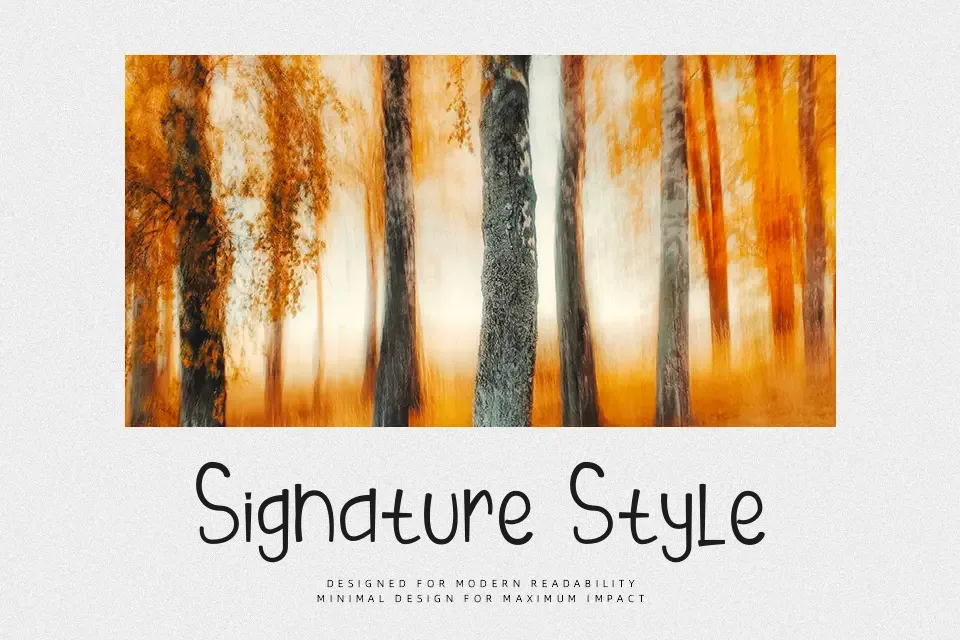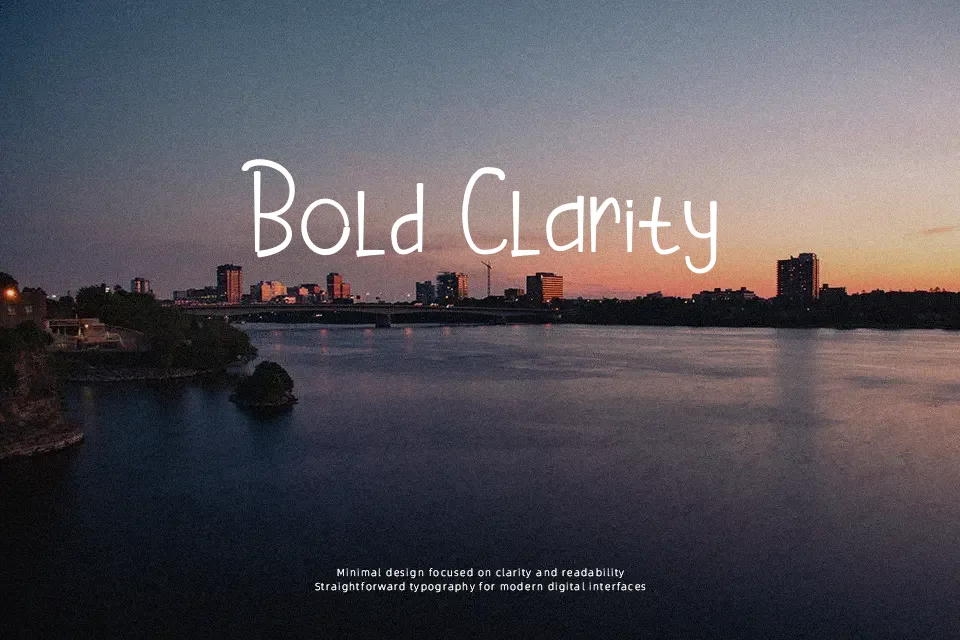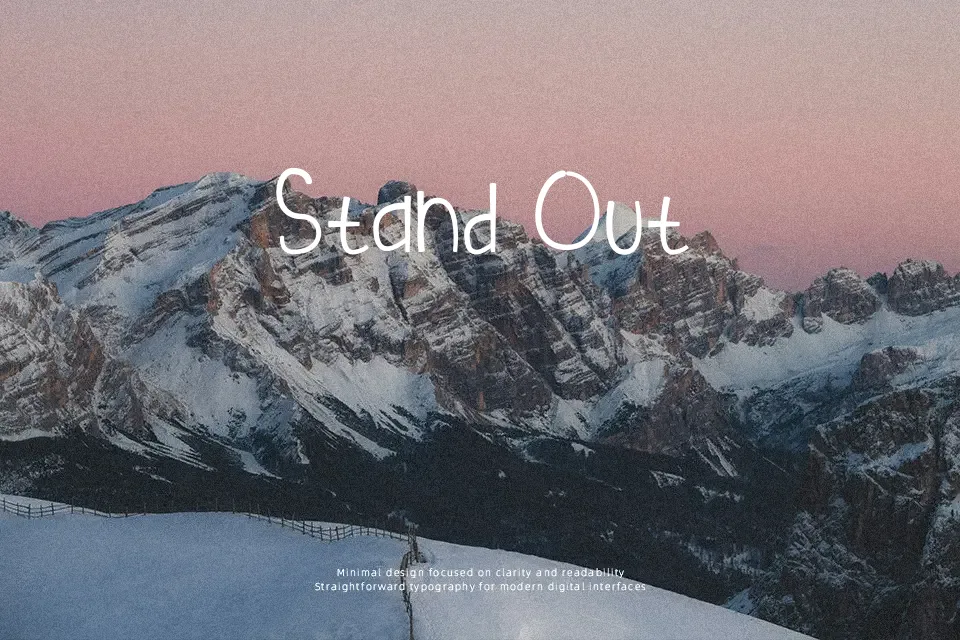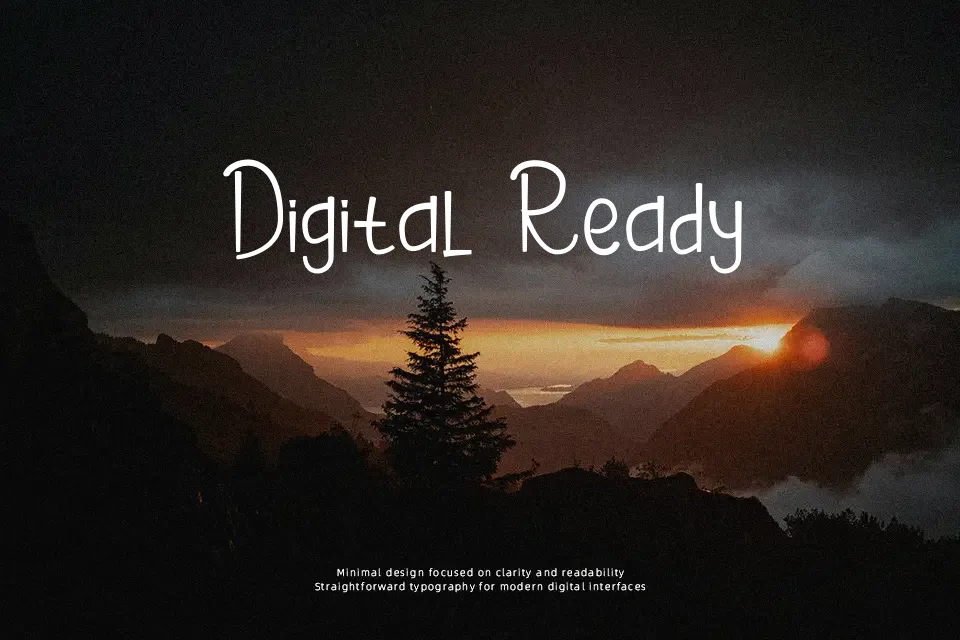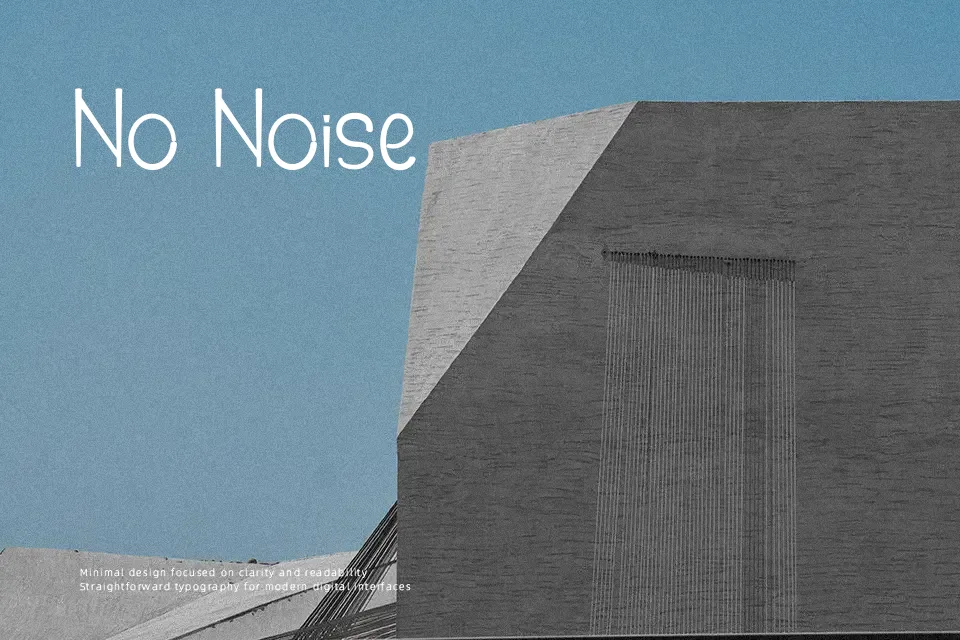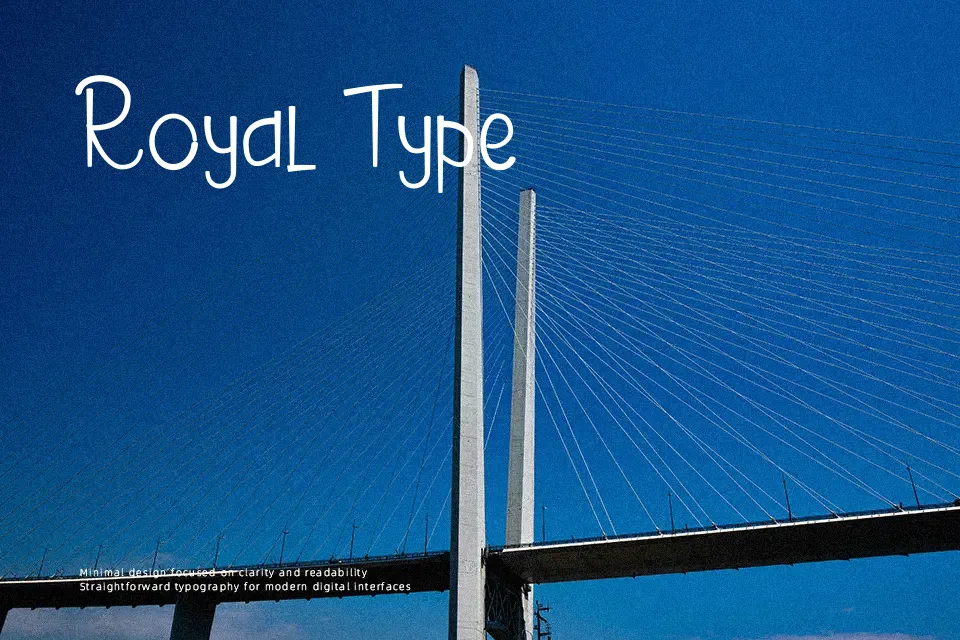
Thanksgiving Cooker Font
Thanksgiving Cooker Font introduces an animated display design characterized by energetic, hand-drawn letterforms with soft curves and irregular stroke weights. The glyphs feature relaxed proportions and moderate letter spacing that keep brief titles legible while emphasizing an informal, festive character. While the rounded details excel in short, high-visibility headlines, decorative forms reduce continuous reading comfort in dense editorial compositions. The typeface is best reserved for seasonal event banners, festive food packaging, and holiday party invitations rather than multi-line body paragraphs.
– holiday greeting cards
– festive party invitations
– seasonal food packaging
– autumn festival banners
– continuous body text
– dense legal documents
– corporate annual reports
– small interface labels
Perfect for headline, holiday, and invitation, with a creative and decorative style.